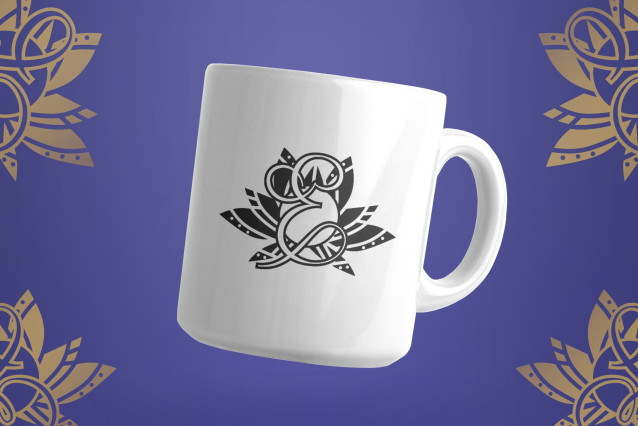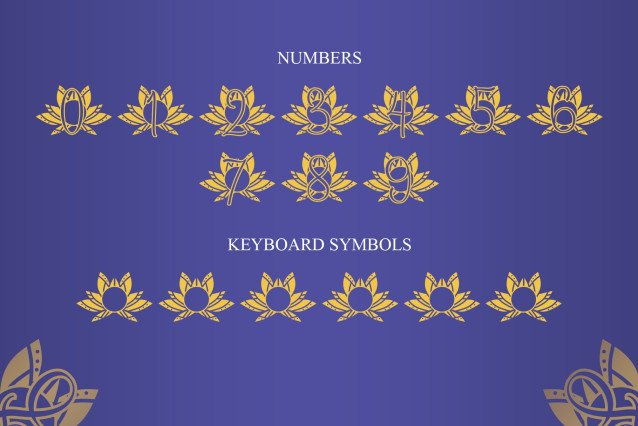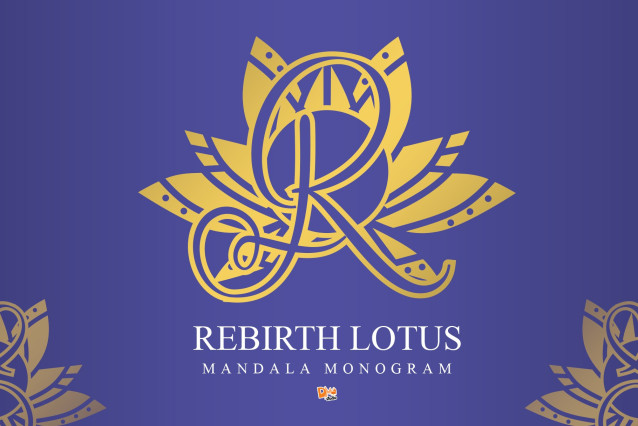
Rebirth Lotus Mandala Monogram Font
Rebirth Lotus Mandala Monogram is a graceful and deeply symbolic font inspired by the transformative beauty of the lotus flower and the sacred geometry of mandala patterns. Each character in this monogram font represents renewal, growth, and clarity—making it perfect for spiritual branding, motivational prints, yoga studios, holistic product packaging, and elegant personal stationery. Its fine details bring an elevated sense of purpose and aesthetic harmony to any design.